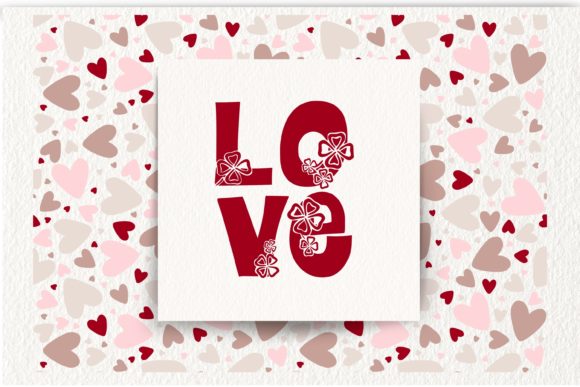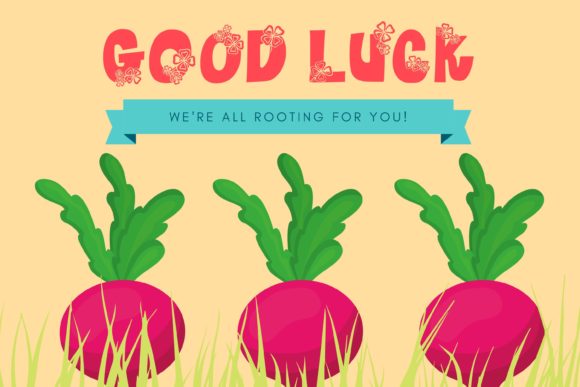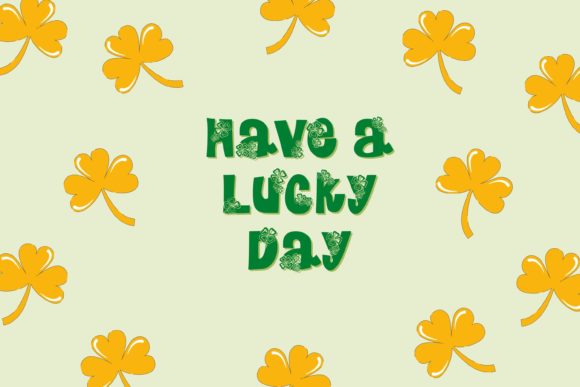
Introduction to Clover in Love Font
Clover in Love is a cool and neat decorative font.
Add it confidently to your favorite creations and let yourself be amazed by the outcome generated .
Key Features of Clover in Love Font
Why Choose Clover in Love Font?
Clover in Love Font offers exceptional quality and versatility, making it a valuable addition to your design toolkit. Whether you’re creating for personal projects or commercial use, Clover in Love Font delivers professional results.